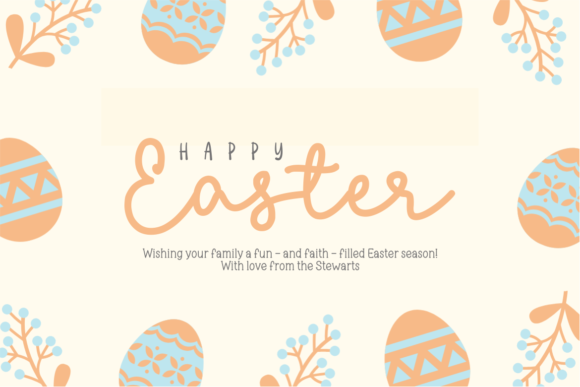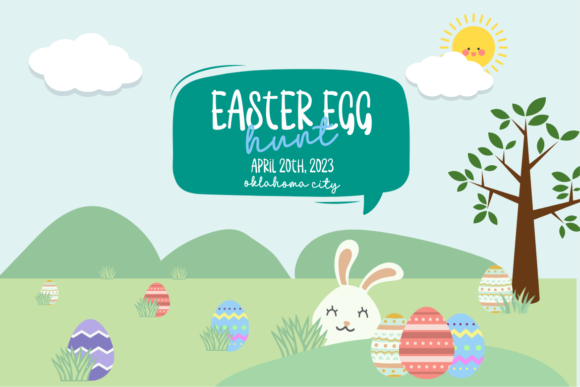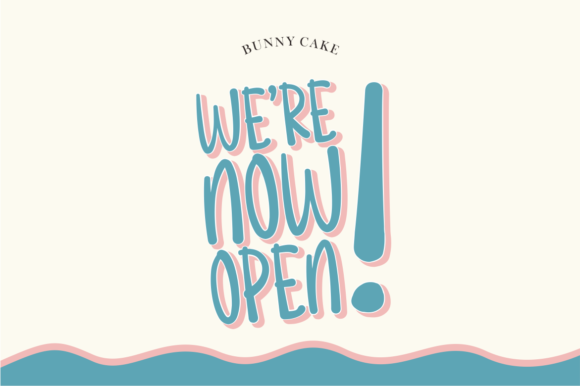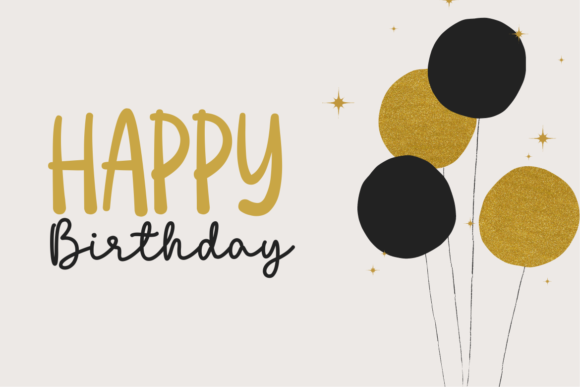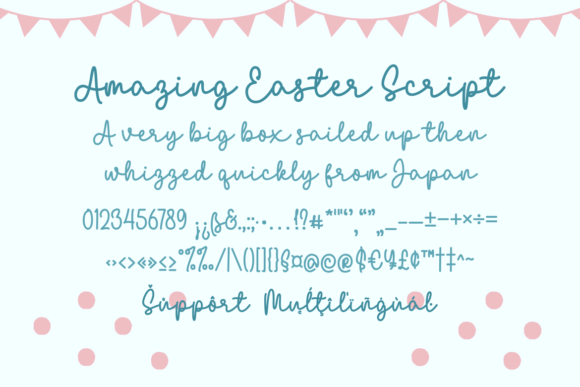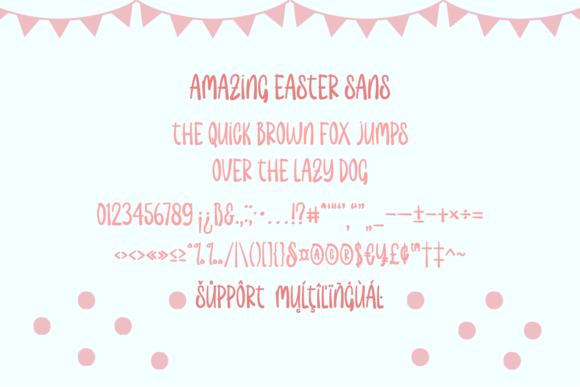
Introducing the Amazing Easter Duo Font: Elevate Your Designs with Elegance and Charm
Are you looking for a font that can add a touch of romance and sophistication to your designs? Look no further than the Amazing Easter Duo Font! This stunning duo font, consisting of a script and display font, is perfect for a wide range of applications, from greeting cards to headlines, and is sure to make your creations stand out.
A Font Duo Like No Other
The Amazing Easter Duo Font is a carefully crafted duo that combines the elegance of a script font with the drama of a display font. The script font is perfect for adding a personal touch to your designs, while the display font is ideal for making a bold statement. Together, they form a match made in heaven that will elevate your designs to new heights.
Endless Possibilities
One of the best things about the Amazing Easter Duo Font is its versatility. Whether you’re designing greeting cards, invitations, headlines, or social media graphics, this font duo has got you covered. Its delicate and stylish appearance makes it perfect for:
• Greeting cards: Add a romantic touch to your Easter greeting cards with the Amazing Easter Duo Font.
• Invitations: Make your invitations stand out with the elegant script font or bold display font.
• Headlines: Use the display font to create eye-catching headlines that grab attention.
• Social media graphics: Add a touch of elegance to your social media graphics with the script font.
• And many more!
Why Choose the Amazing Easter Duo Font?
So, what sets the Amazing Easter Duo Font apart from other fonts? Here are just a few reasons why designers and crafters love this font:
• Romantic touch: The Amazing Easter Duo Font adds a touch of romance and sophistication to any design.
• Versatility: Use the font duo for a wide range of applications, from greeting cards to headlines.
• Elegant design: The delicate and stylish design of the font duo makes it perfect for creating beautiful designs.
Tips and Tricks for Using the Amazing Easter Duo Font
To get the most out of the Amazing Easter Duo Font, here are a few tips and tricks to keep in mind:
• Mix and match: Experiment with different combinations of the script and display fonts to create unique and interesting designs.
• Play with sizes: Use different font sizes to create visual interest and add emphasis to your designs.
• Add embellishments: Add embellishments, such as flowers or ribbons, to give your designs an extra touch of elegance.